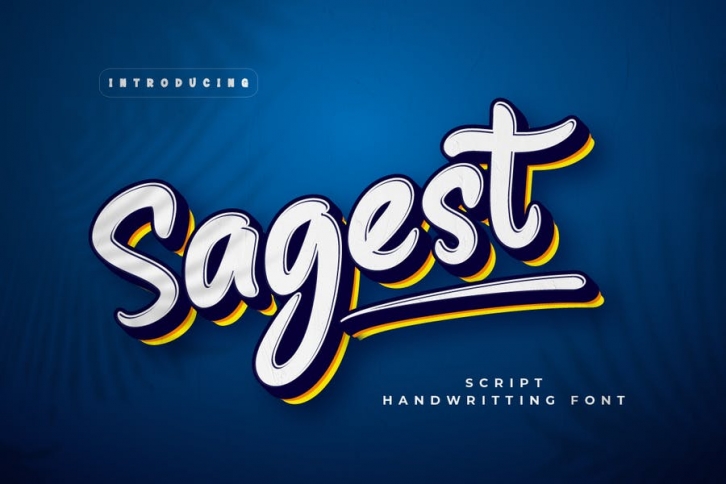
Introducing our font named Sagest This font is a handwritten typeface with a calm, abstract, and lovely hand touch that may be used in a range of applications.
This handwritten typeface is ideal for bold text and may be used for branding, ads, posters, banners, packaging, podcasts, outdoor activities, quotes, drinks, and more.